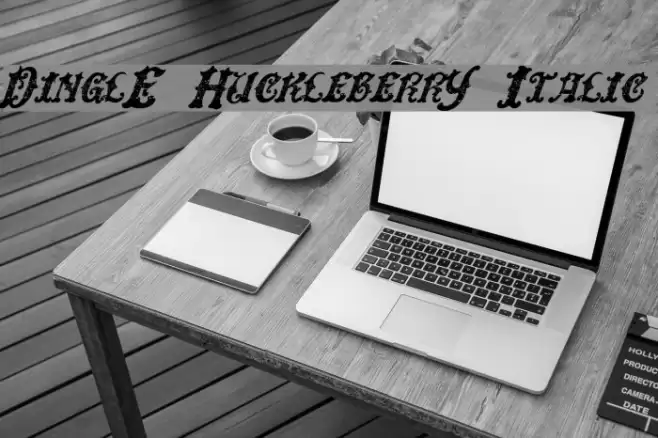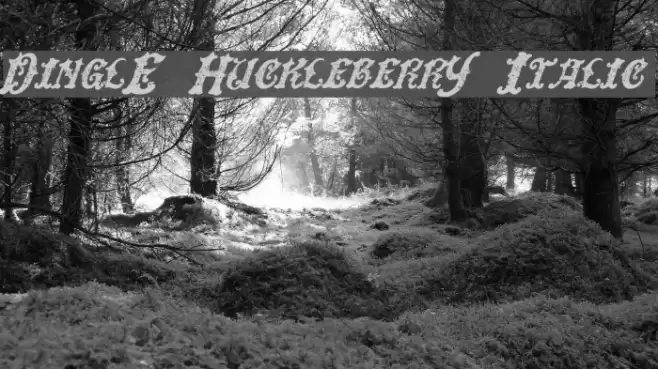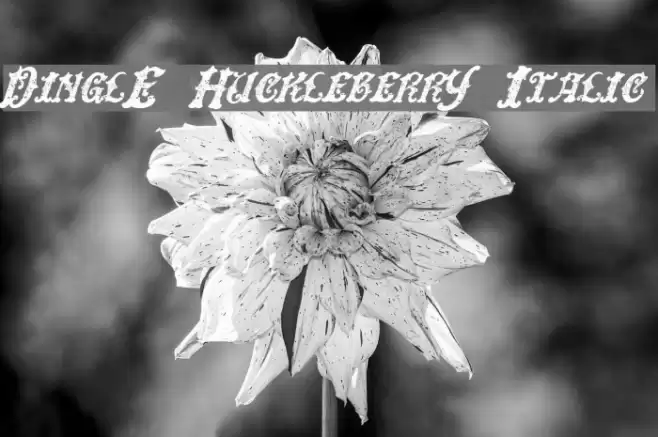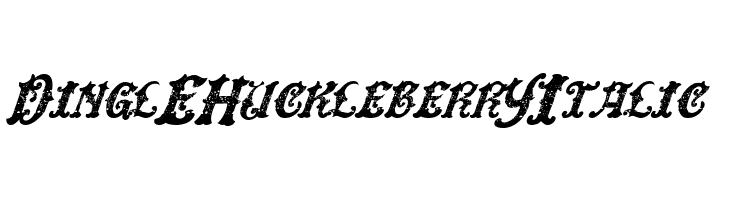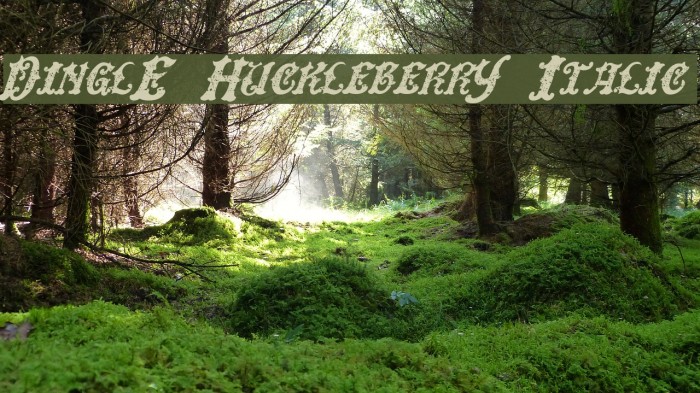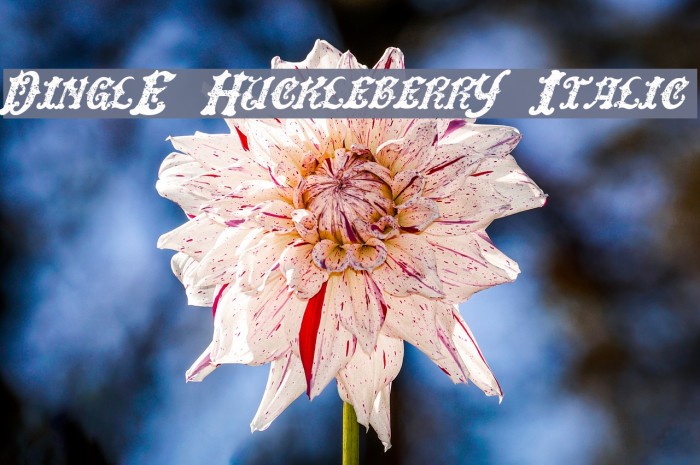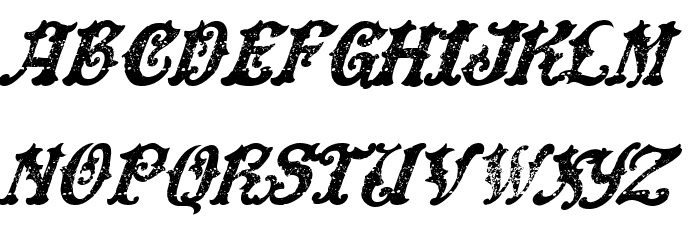
DinglE HuckleberrY Italic Font
DinglE HuckleberrY Italic Description
This font features a bold and decorative style with a distressed texture that gives it a vintage and rugged appearance. The characters are italicized, adding a dynamic and flowing quality to the text. Each letter is uniquely designed with intricate details and flourishes, making it stand out as a display typeface. The font's bold weight and high contrast between thick and thin strokes enhance its visibility and impact, making it suitable for eye-catching designs. The character spacing is relatively tight, which helps maintain a cohesive look despite the elaborate design elements.
A bold, decorative, and distressed italic font with a vintage flair from Uncategorized fonts.
- Proposed Projects: Ideal for vintage-themed posters, logos, album covers, and branding that requires a bold and distinctive look.
- Character Spacing: Tight
- Overall Style: Vintage, Decorative